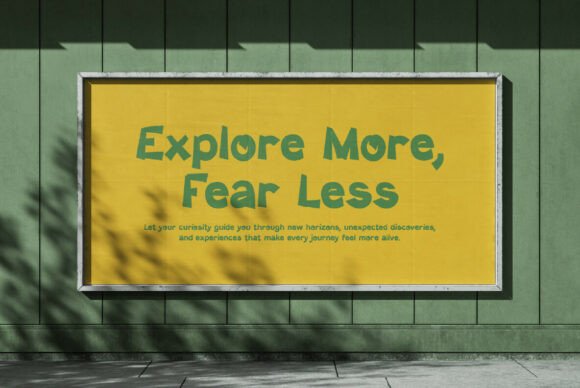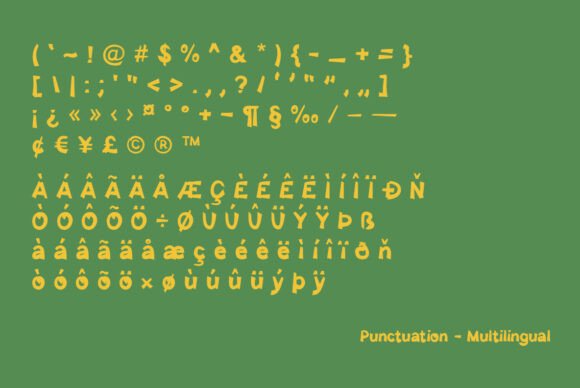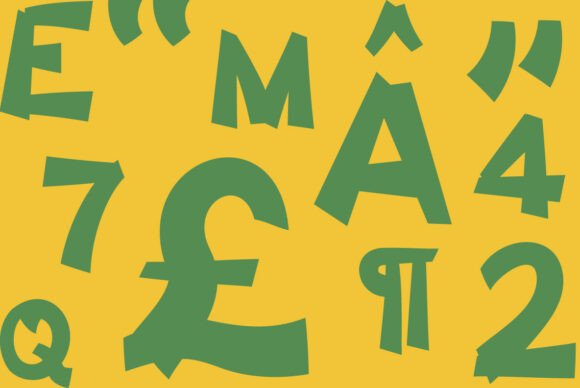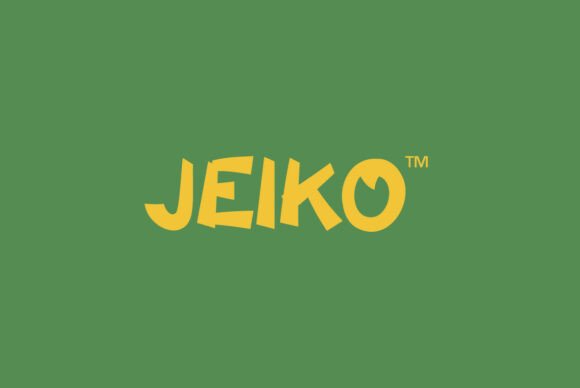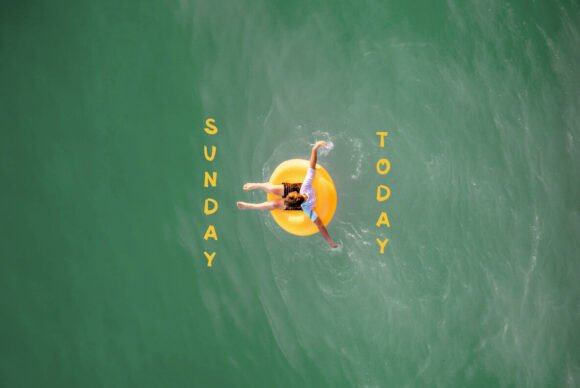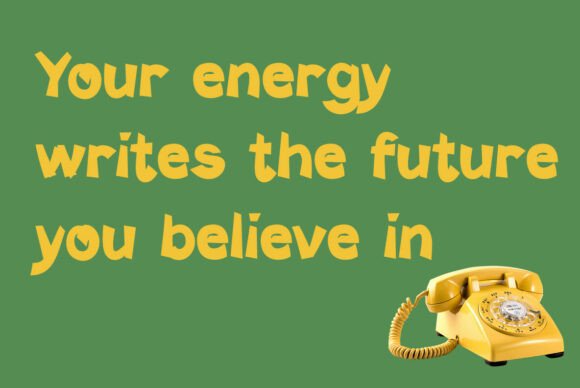
Discover the Playful Charm of Bunkel Font: Elevate Your Designs with a Unique and Organic Personality
In the world of typography, few fonts manage to convey a sense of playfulness and approachability as effectively as the Bunkel font. Characterized by its wide, round, and slightly distorted forms, Bunkel gives the impression of letters cut from soft material or drawn with a broad, playful brush. This distinctive typeface is not just a visual treat; it’s also incredibly versatile, making it an excellent choice for a wide range of design applications.
The Distinctive Features of Bunkel Font
The Bunkel typeface is defined by its heavyweight presence, which maximizes its visibility and makes it impossible to ignore. One of its most striking features is the unique angled cuts and soft edges that give Bunkel an unmistakable organic personality. This combination of characteristics makes Bunkel particularly suitable for projects that aim to be approachable and fun, such as children’s media, food and beverage branding, and advertising that seeks to connect with its audience on a more personal level.
Bunkel is primarily a display font, and its simple, legible shapes ensure that it communicates effectively across large formats like posters, packaging labels, and big event signage. However, its versatility extends far beyond these applications. Designers and crafters will find Bunkel to be perfect for:
• Branding: Infuse your brand with a cheerful and approachable personality that instantly stands out.
• Packaging: Add a playful touch to product packaging that captures the attention of potential customers.
• Poster Design: Create eye-catching posters that convey your message with a fun and vibrant visual voice.
• Children’s Products: Ideal for designing materials for kids, such as books, games, and educational tools.
• Educational Materials: Bring a playful and engaging element to textbooks, workbooks, and other learning resources.
• Comics and Illustrations: Add personality and flair to comic strips, illustrations, and graphic novels.
• Social Media Graphics: Elevate your social media presence with fun and engaging graphics that reflect your brand’s personality.
Bringing Joy and Authenticity to Your Designs
Whether you’re creating a fun logo, a bold headline, or a vibrant product design, Bunkel adds a unique blend of joy, attitude, and authenticity to your work. Its organic personality and playful charm make it an excellent tool for designers looking to break away from traditional typography and inject their designs with a bit of whimsy and creativity.
Tips for Using Bunkel Font Effectively
To get the most out of Bunkel, consider the following tips:
• Pair with Simpler Fonts: When using Bunkel for headings or titles, pair it with simpler fonts for body text to create visual contrast and hierarchy.
• Experiment with Colors: Bunkel looks great in bold, bright colors. Don’t be afraid to experiment with different color schemes to match your brand or design theme.
• Consider Your Audience: Given its playful nature, Bunkel is particularly effective for projects aimed at younger audiences or for creating a casual, friendly vibe.
Bunkel font offers a refreshing alternative to more traditional typefaces, bringing a unique blend of playfulness, approachability, and organic personality to the table. Its versatility and distinctive charm make it an invaluable tool for designers and crafters looking to elevate their projects with a cheerful visual voice. Whether you’re working on branding, packaging, educational materials, or social media graphics, Bunkel is sure to deliver a memorable and engaging visual experience.